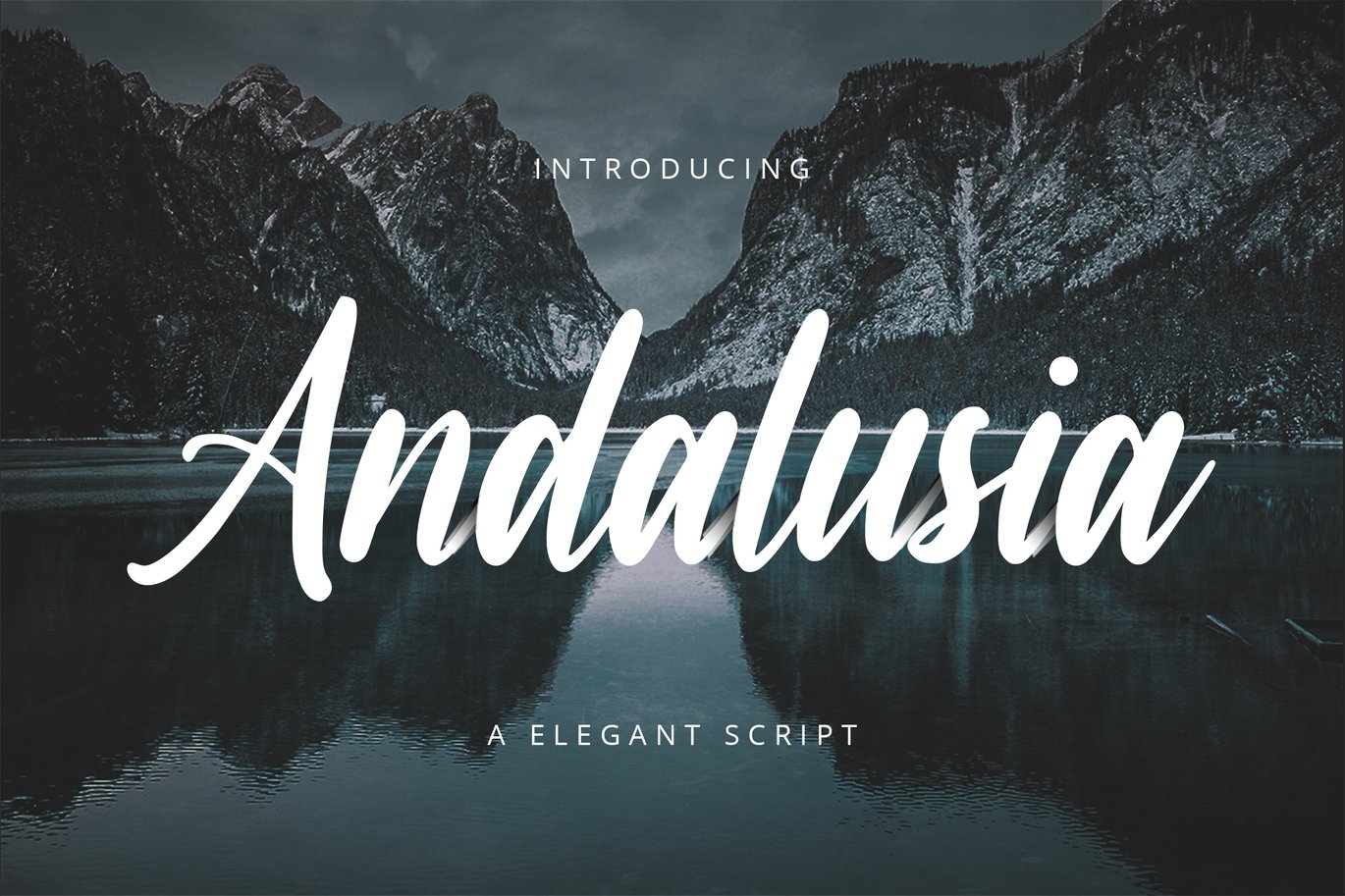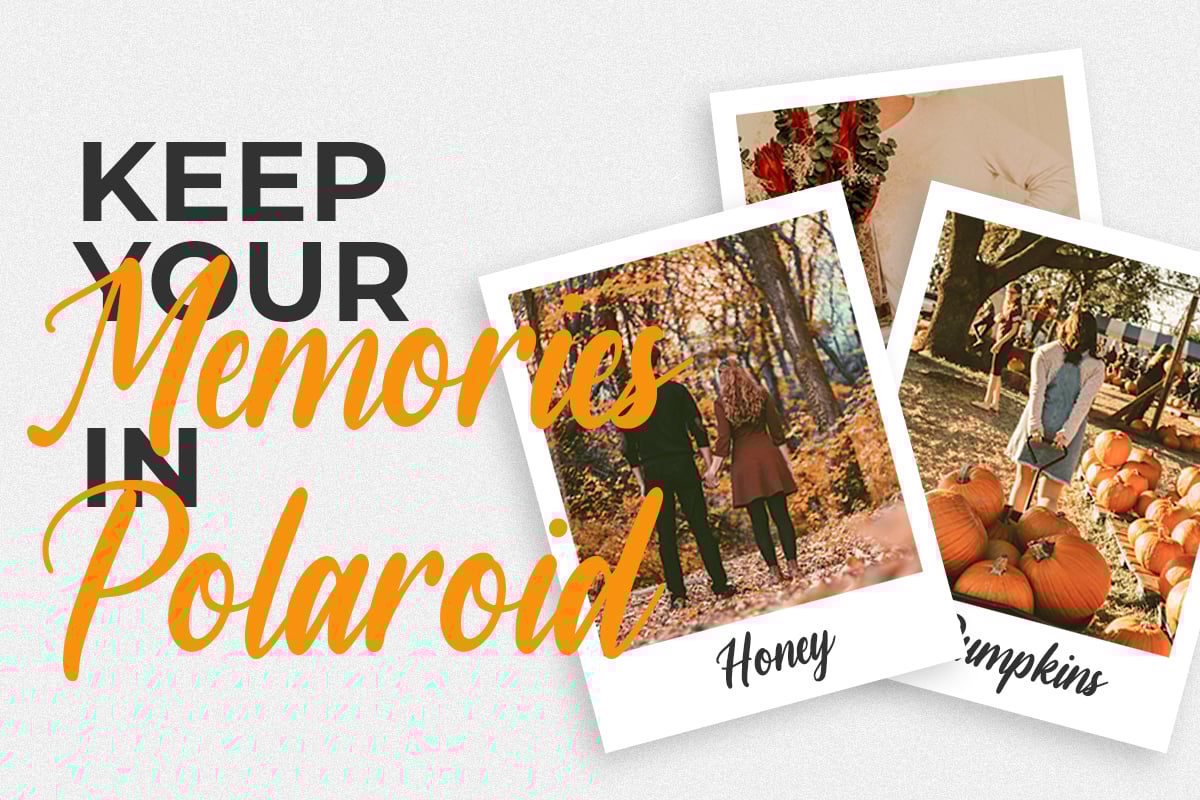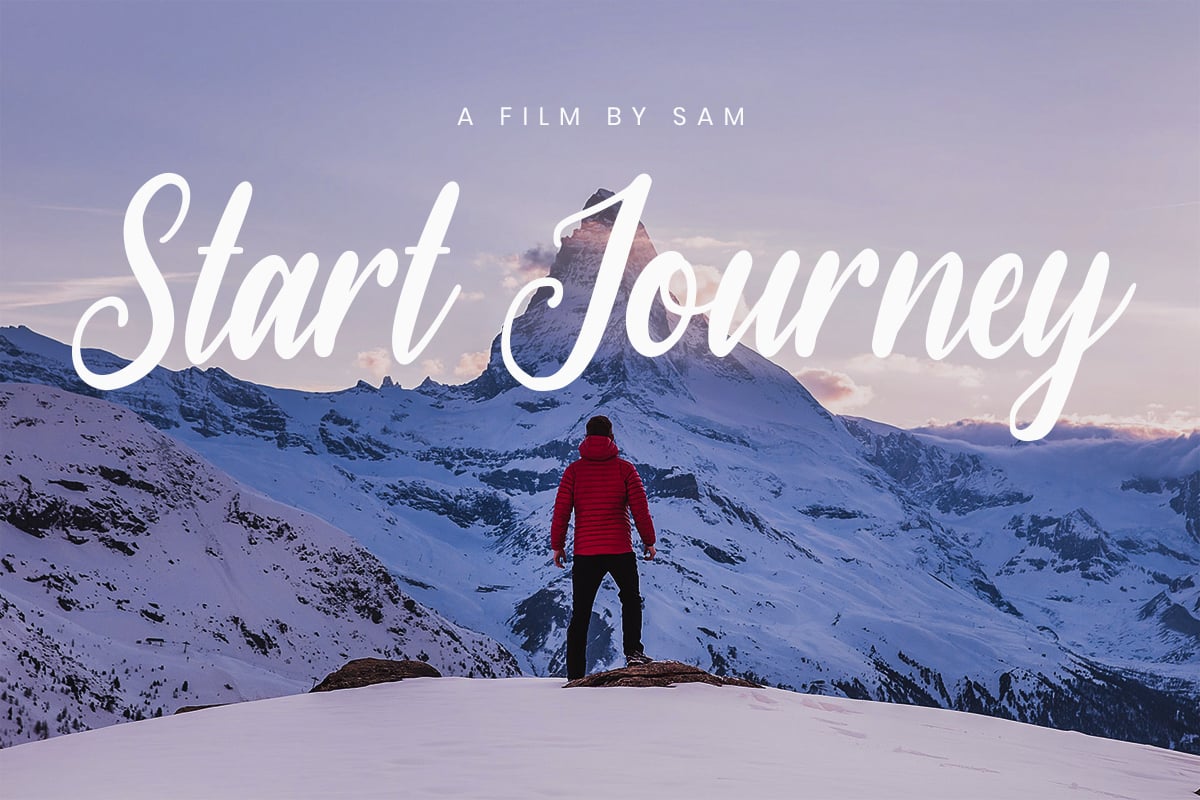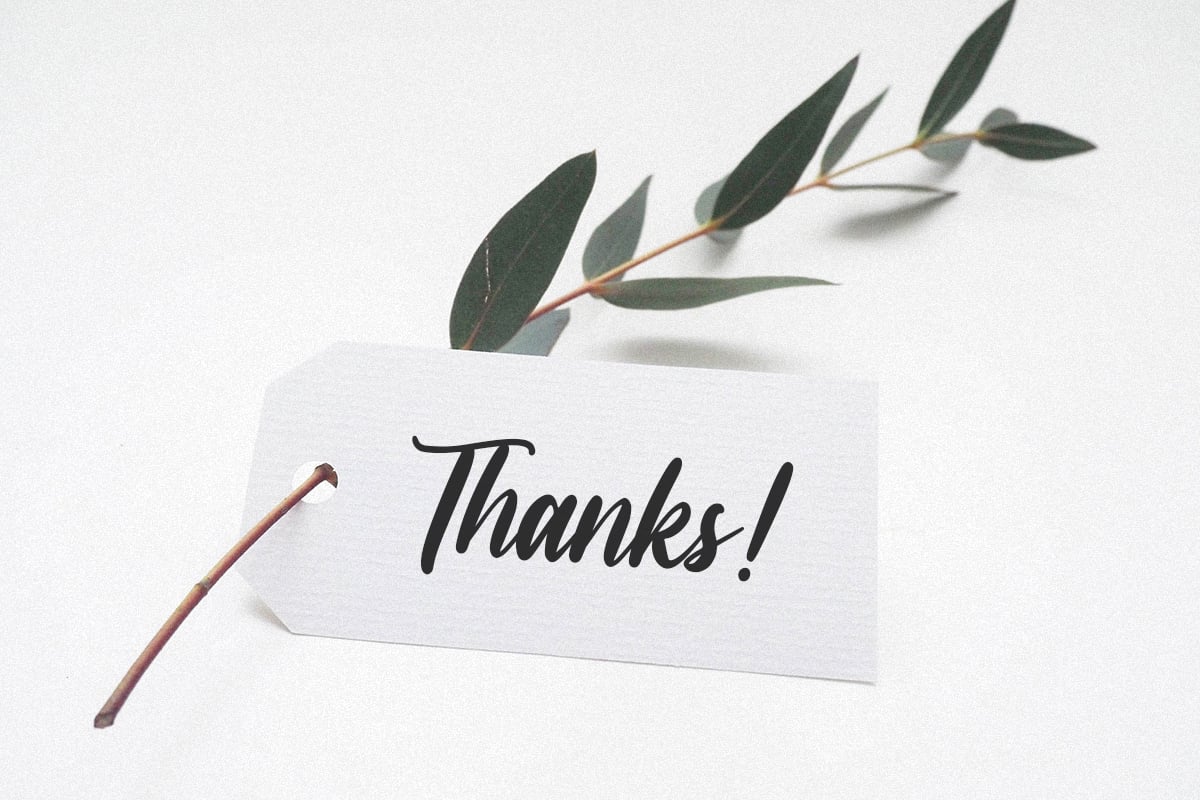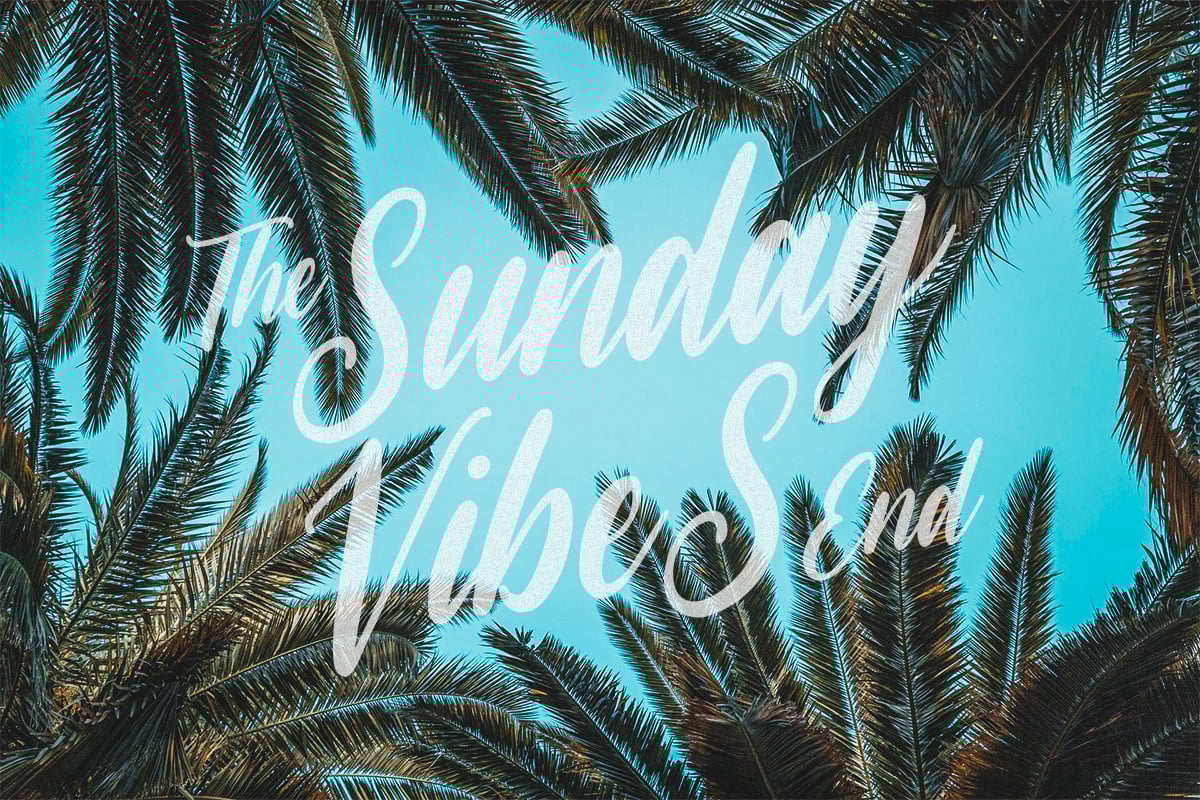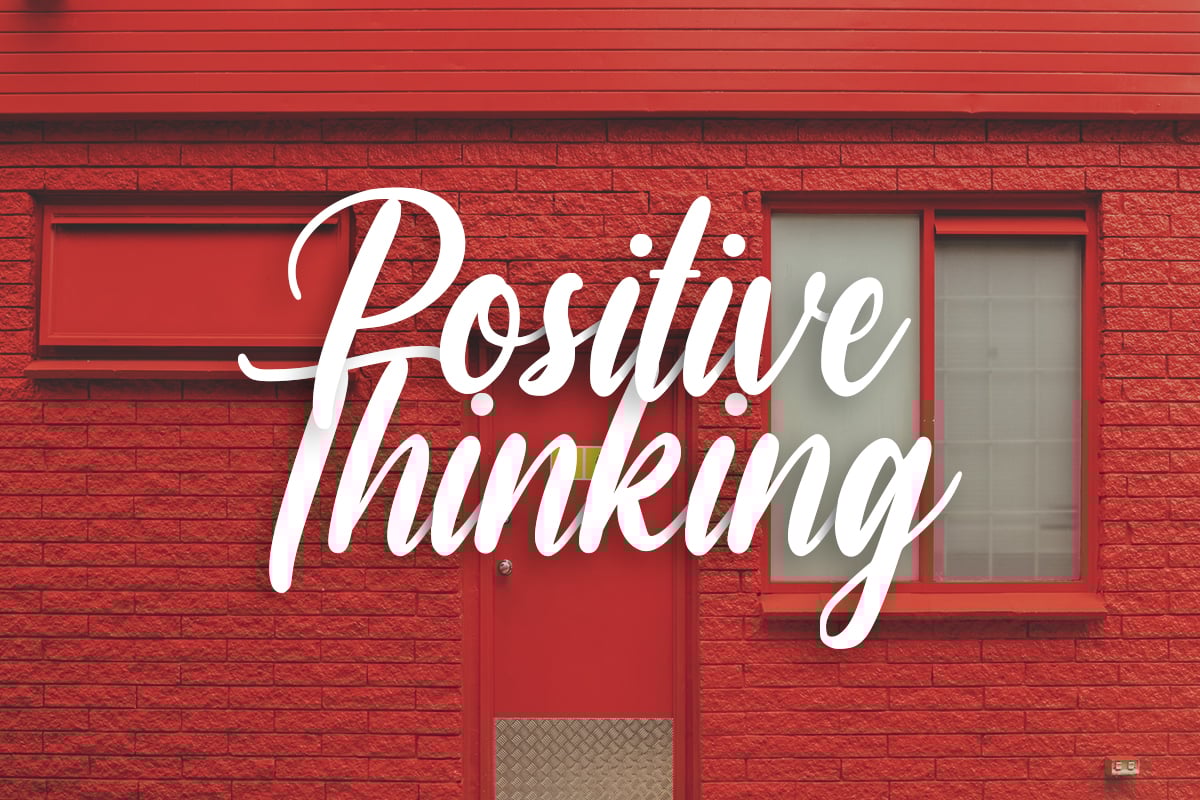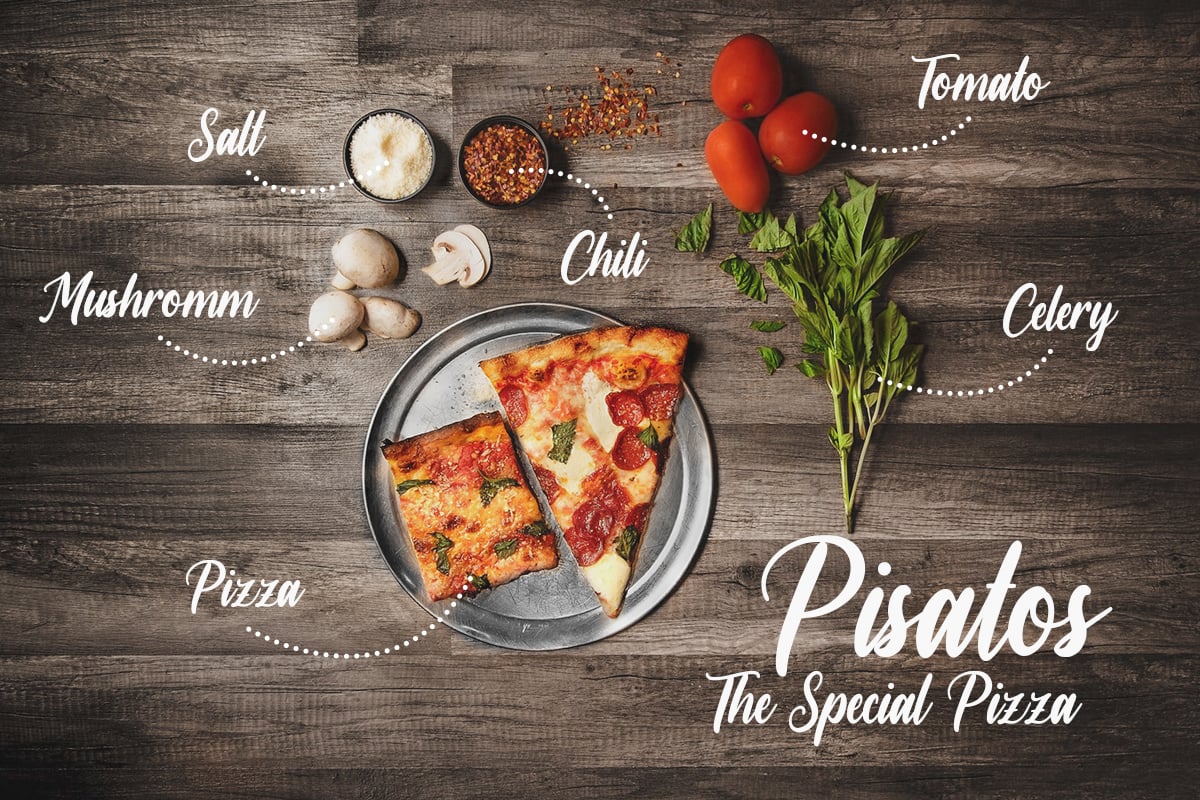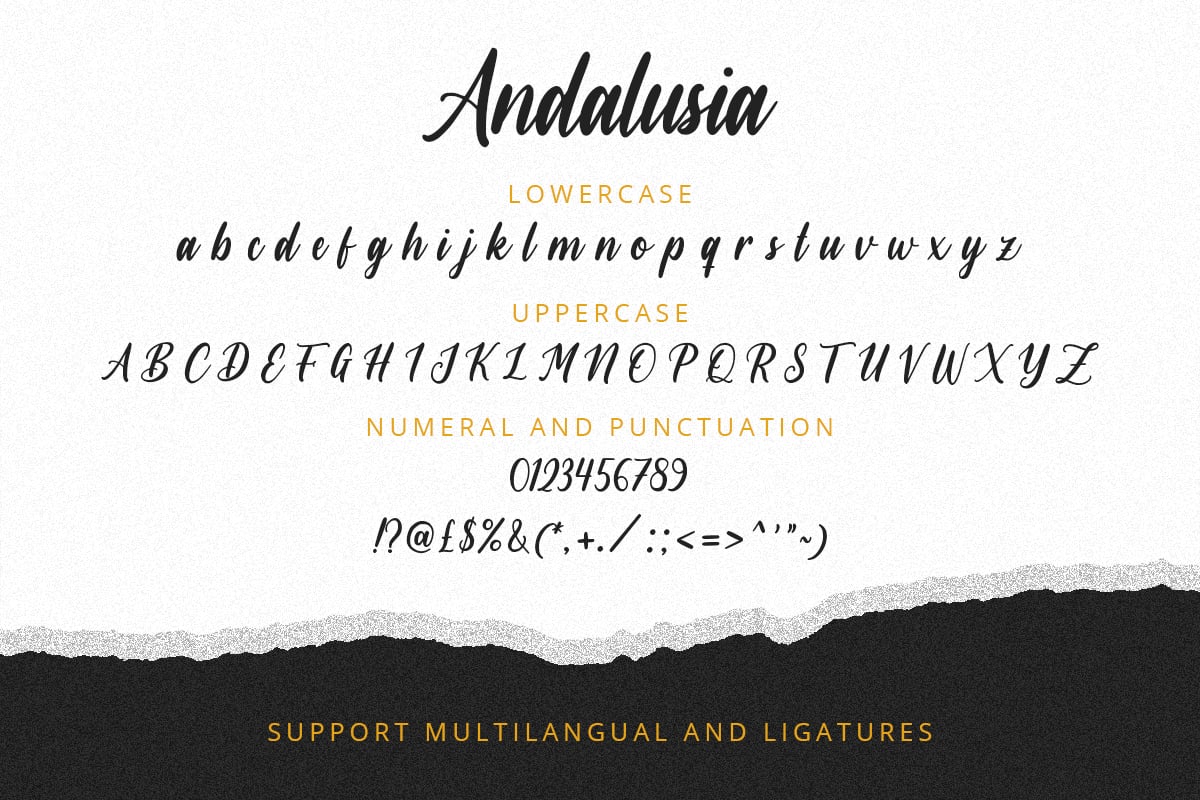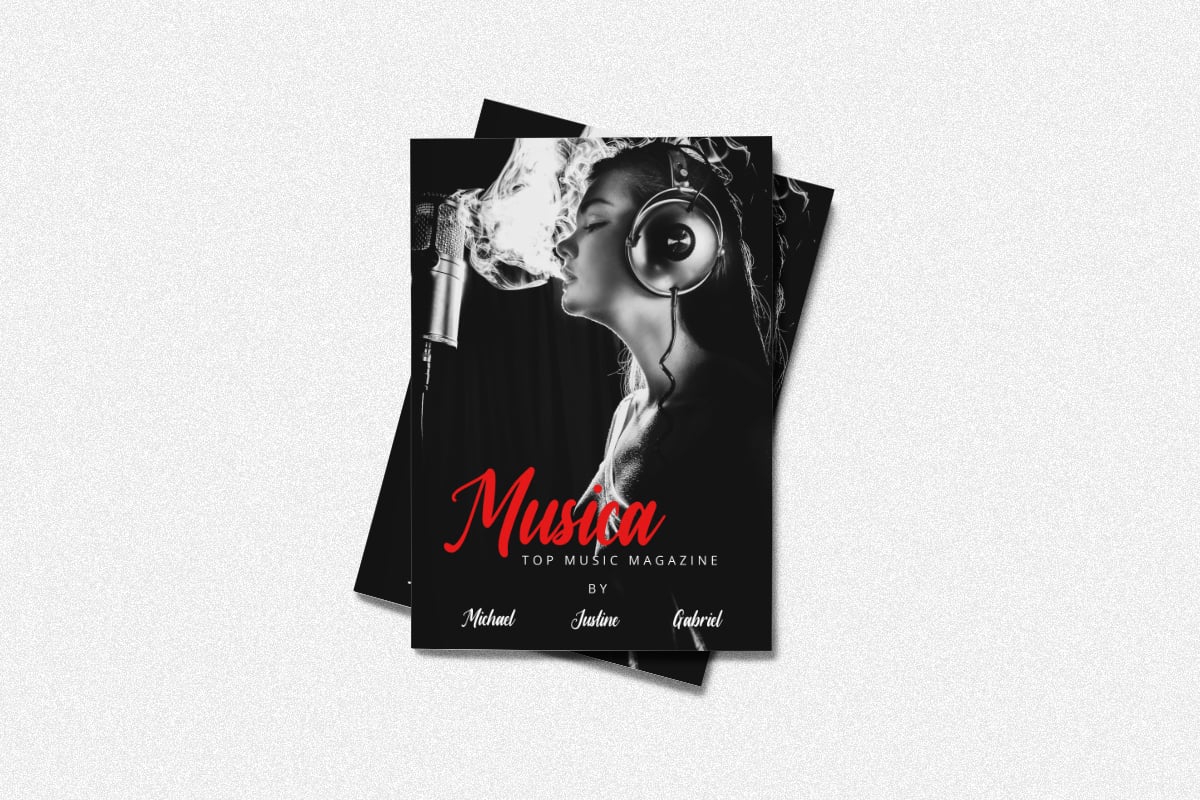
Andalusia – Bold Font
Andalusia is a bold script with a modern look. It features an incredibly classic style, while still keeping a friendly feel. Andalusia is the perfect font for making original and outstanding designs.
- Ligatures, Swash, Alternates
- Letters, Numbers, punctuation